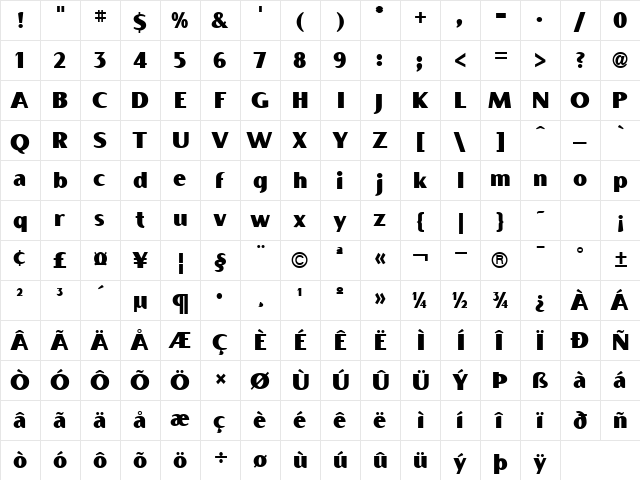
Boca Raton Solid Regular
Design Context for Boca Raton Solid Typeface
Boca Raton Solid offers clean, dependable letterforms without strong stylistic allegiance, making it a practical choice for designers who need flexibility.